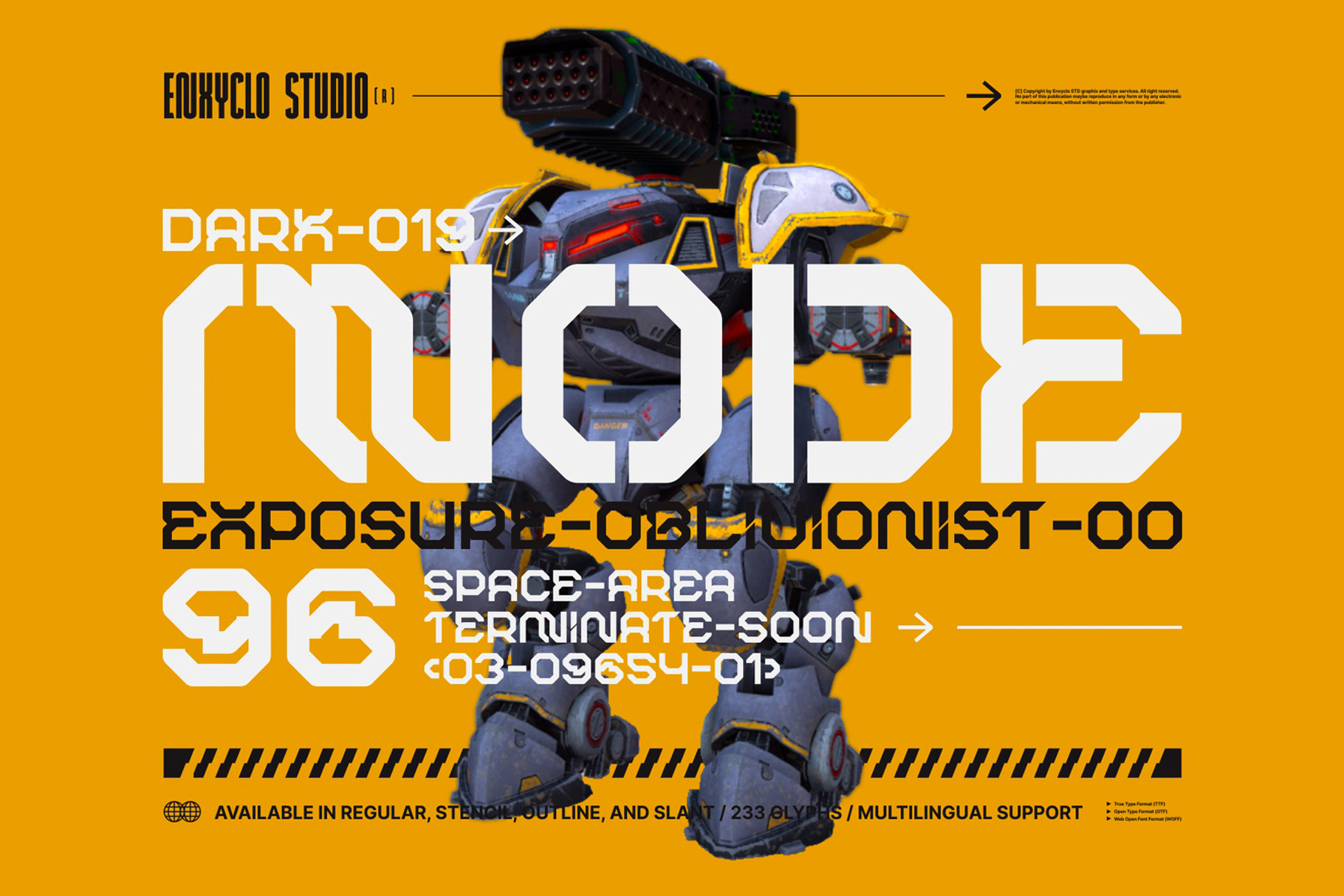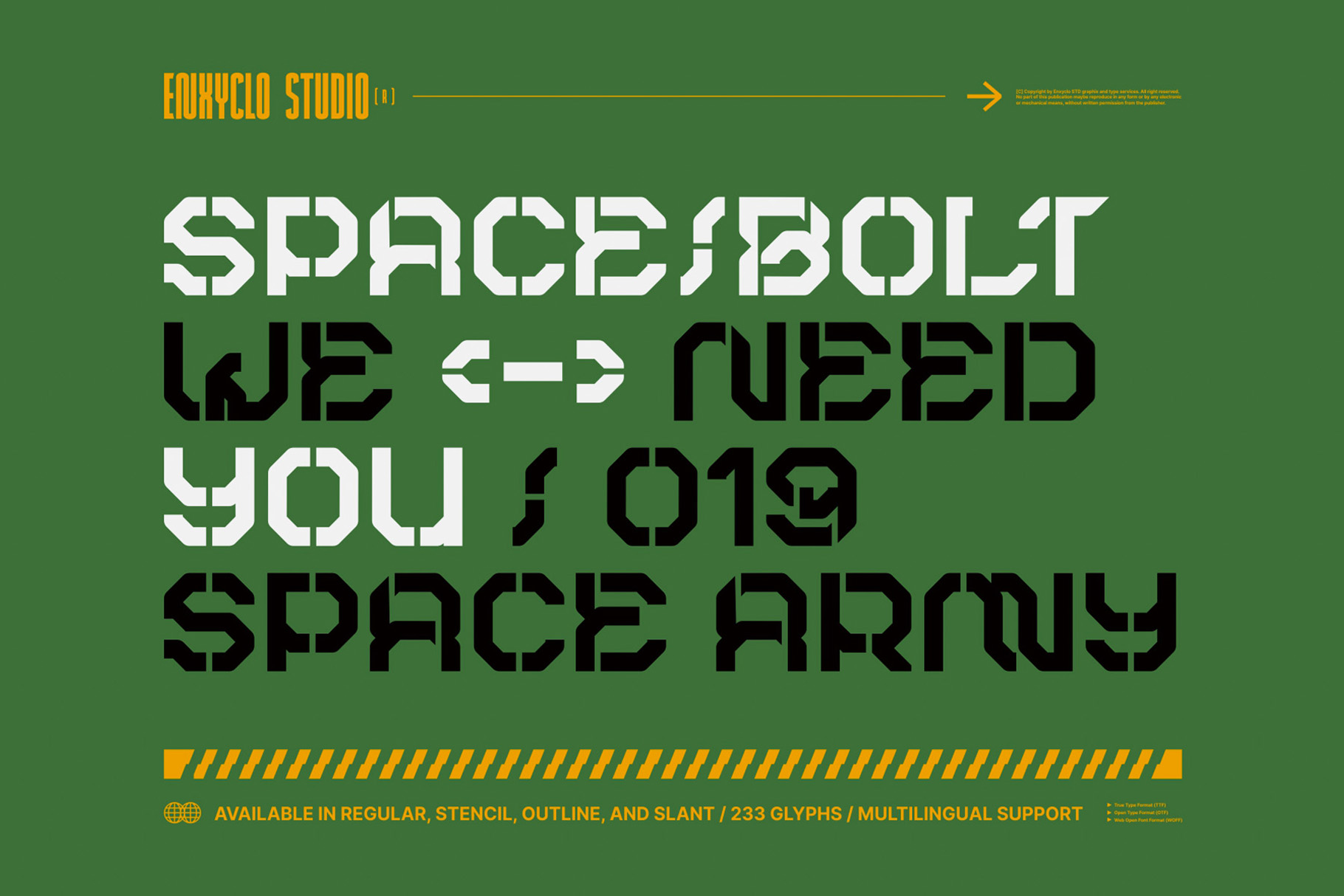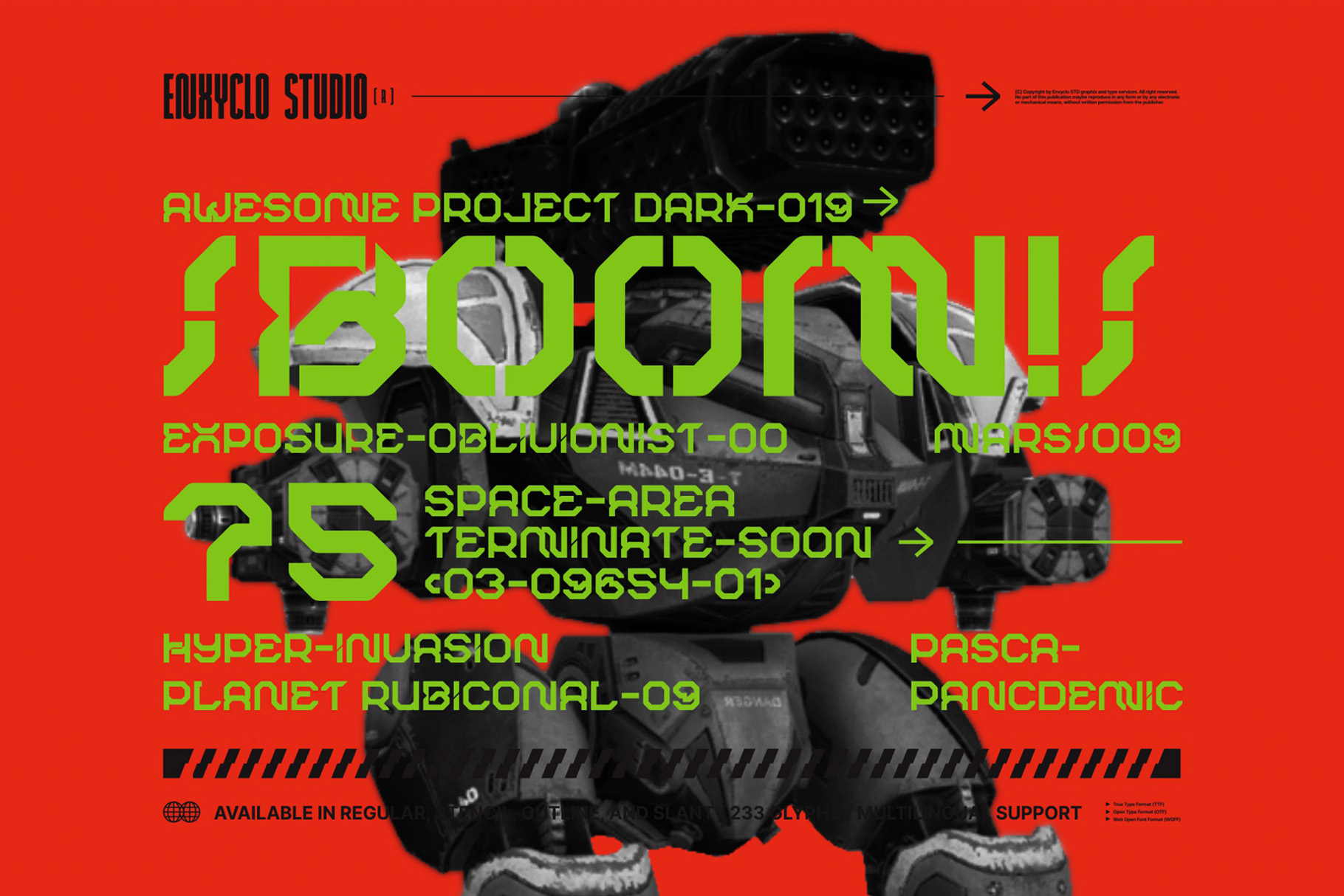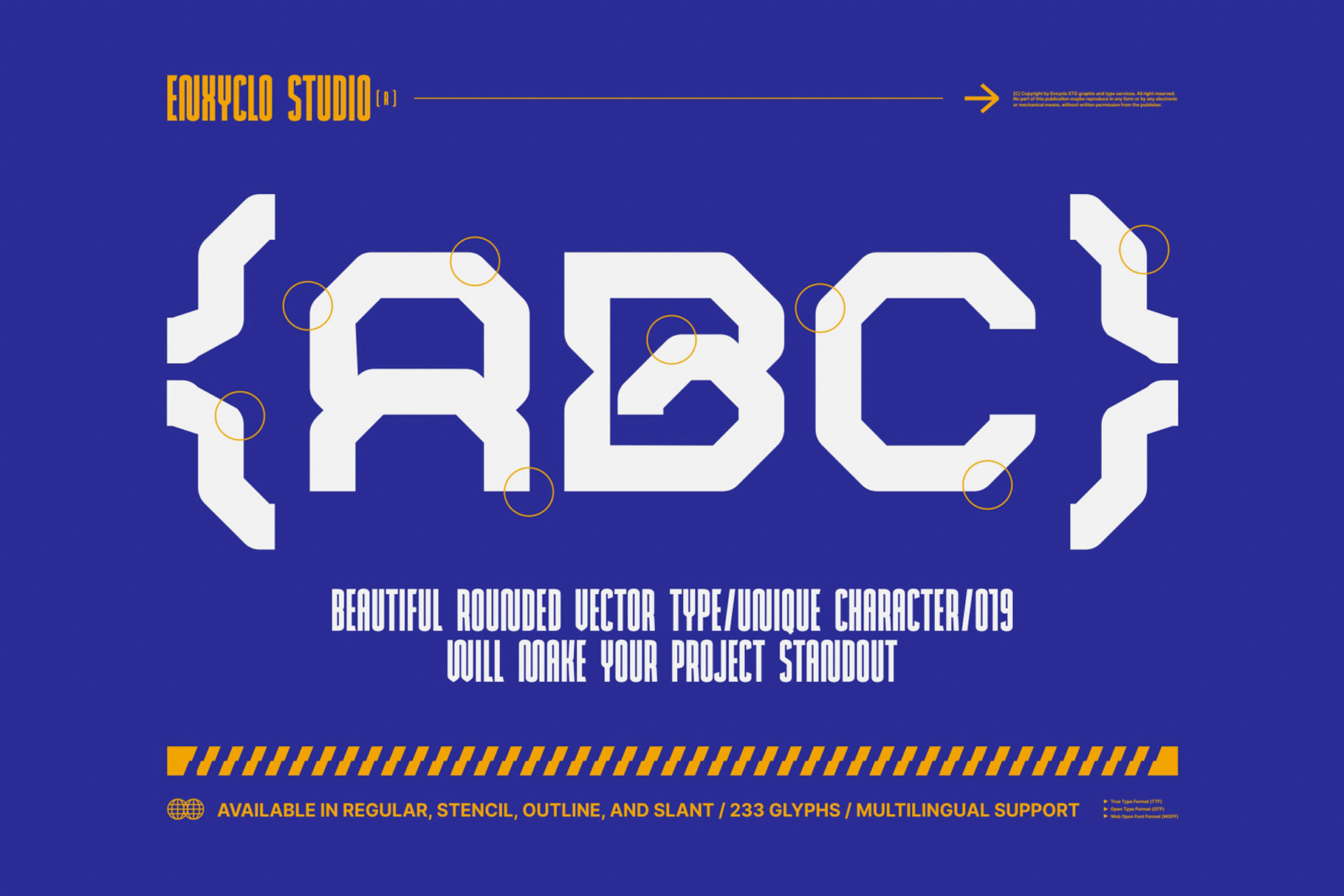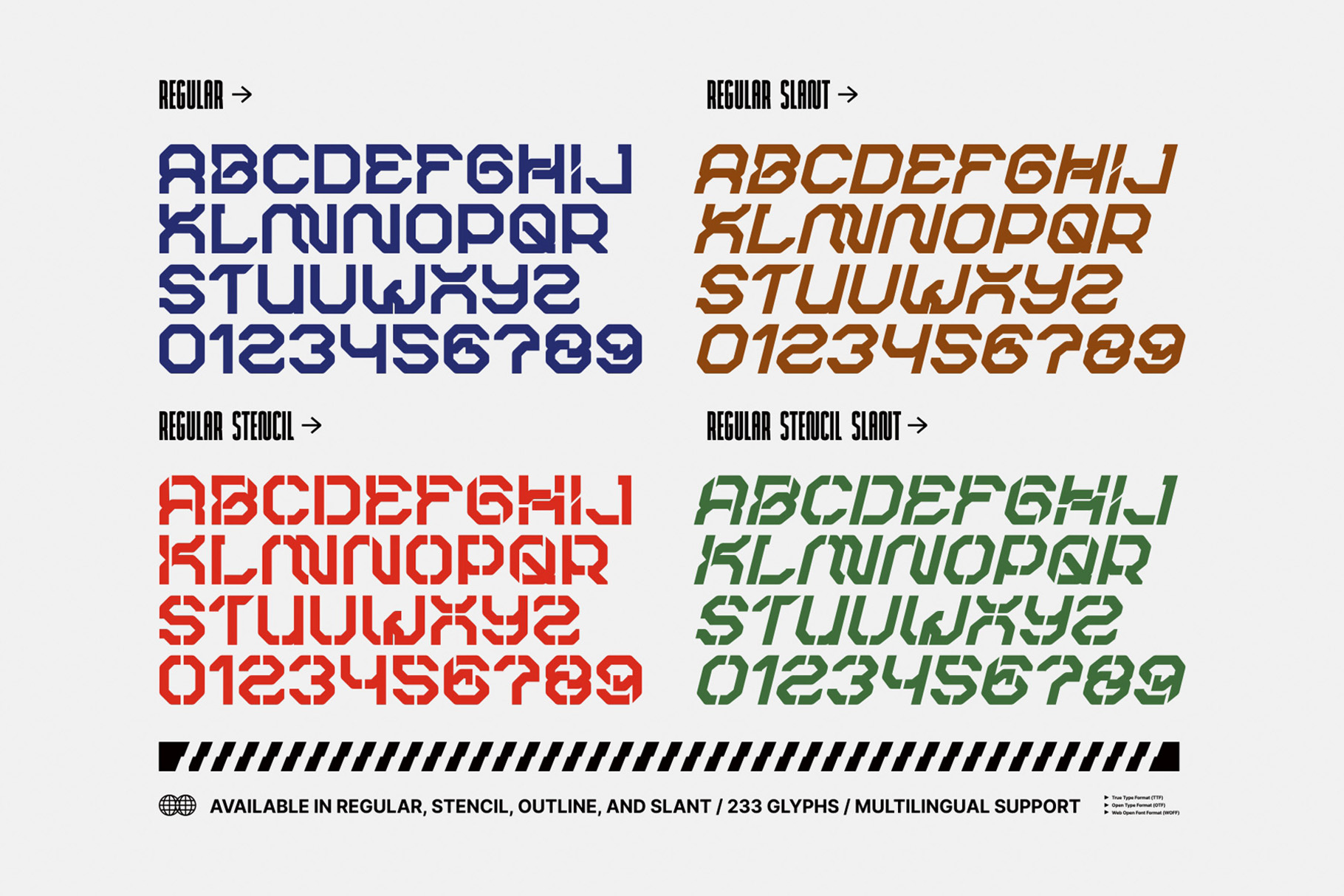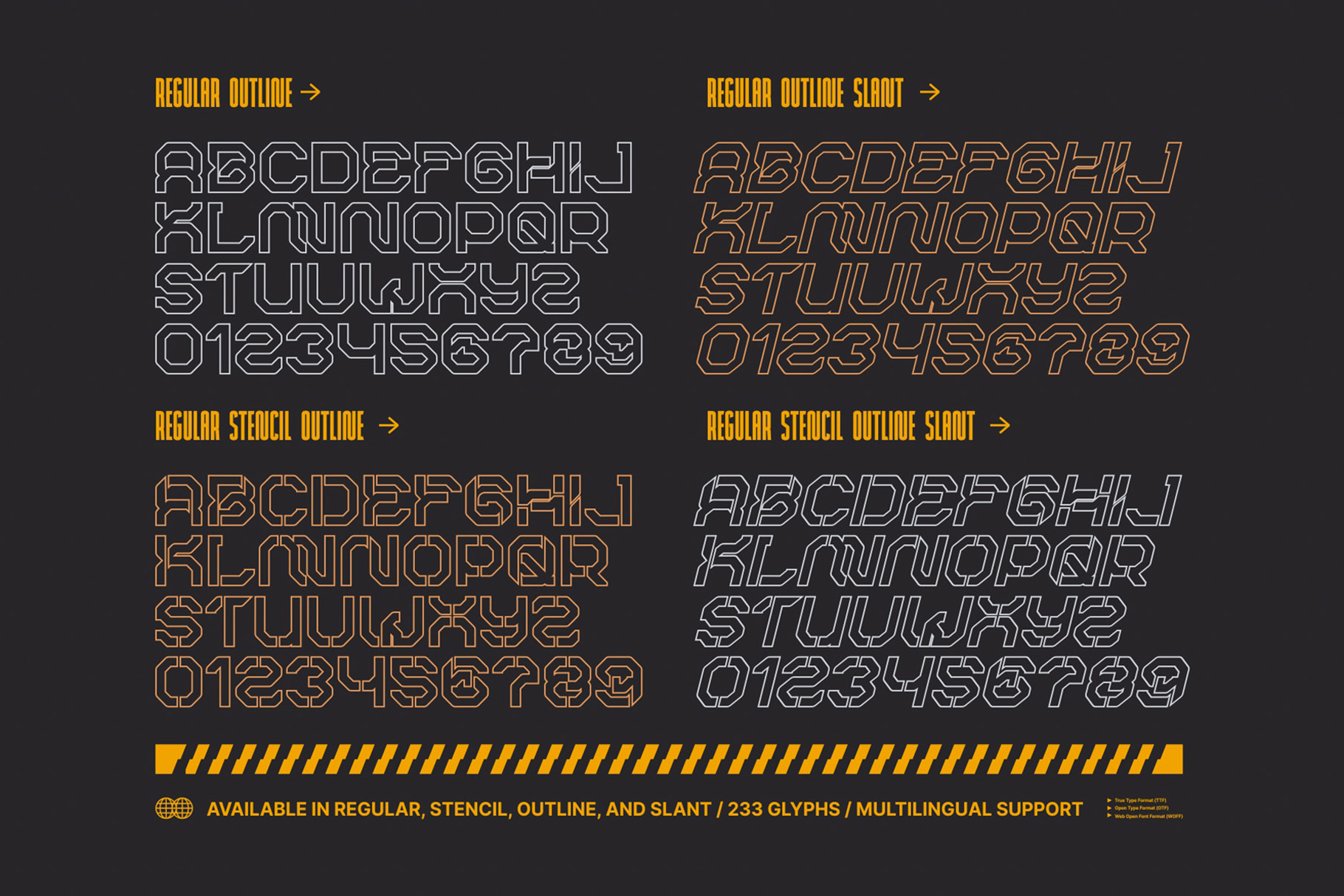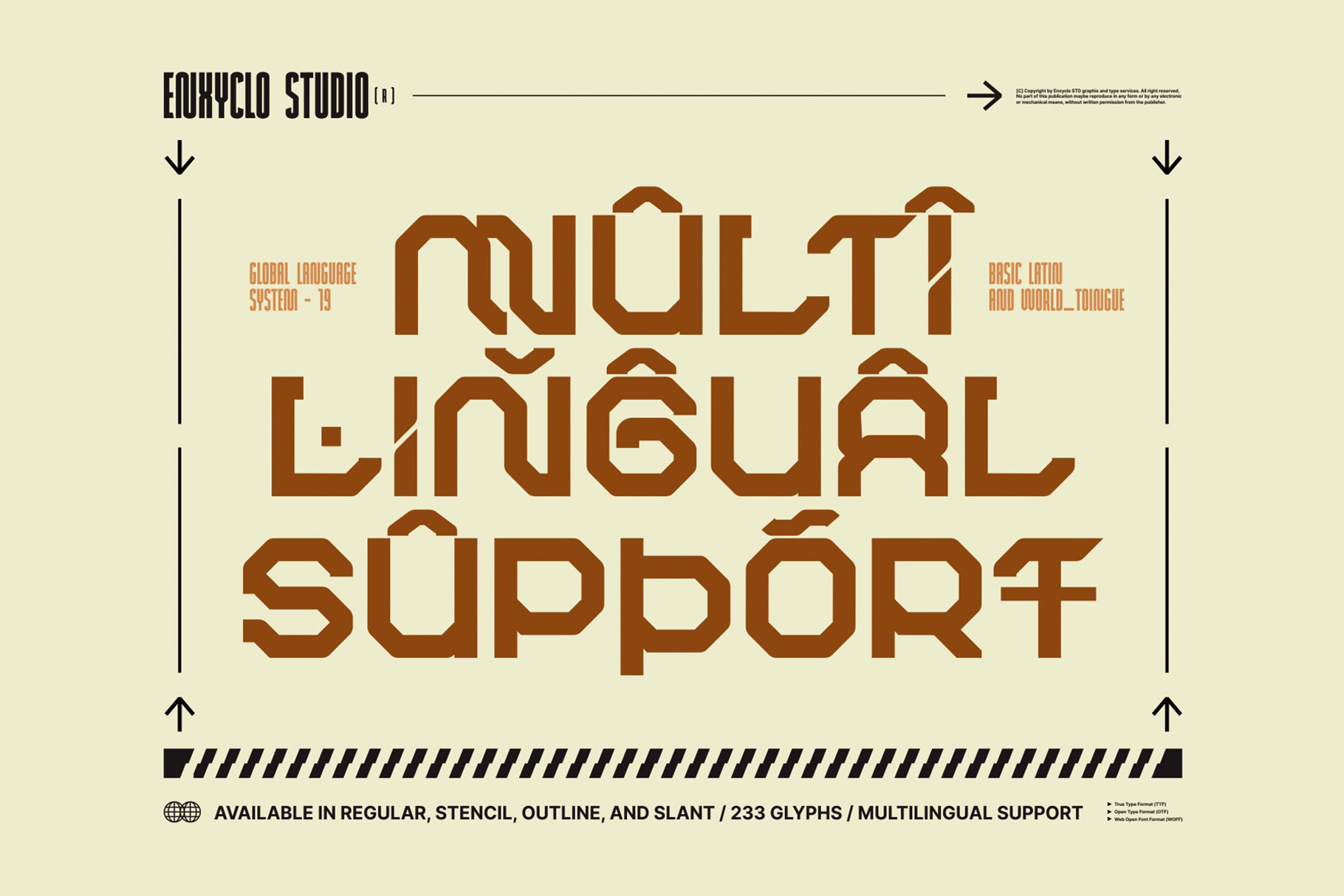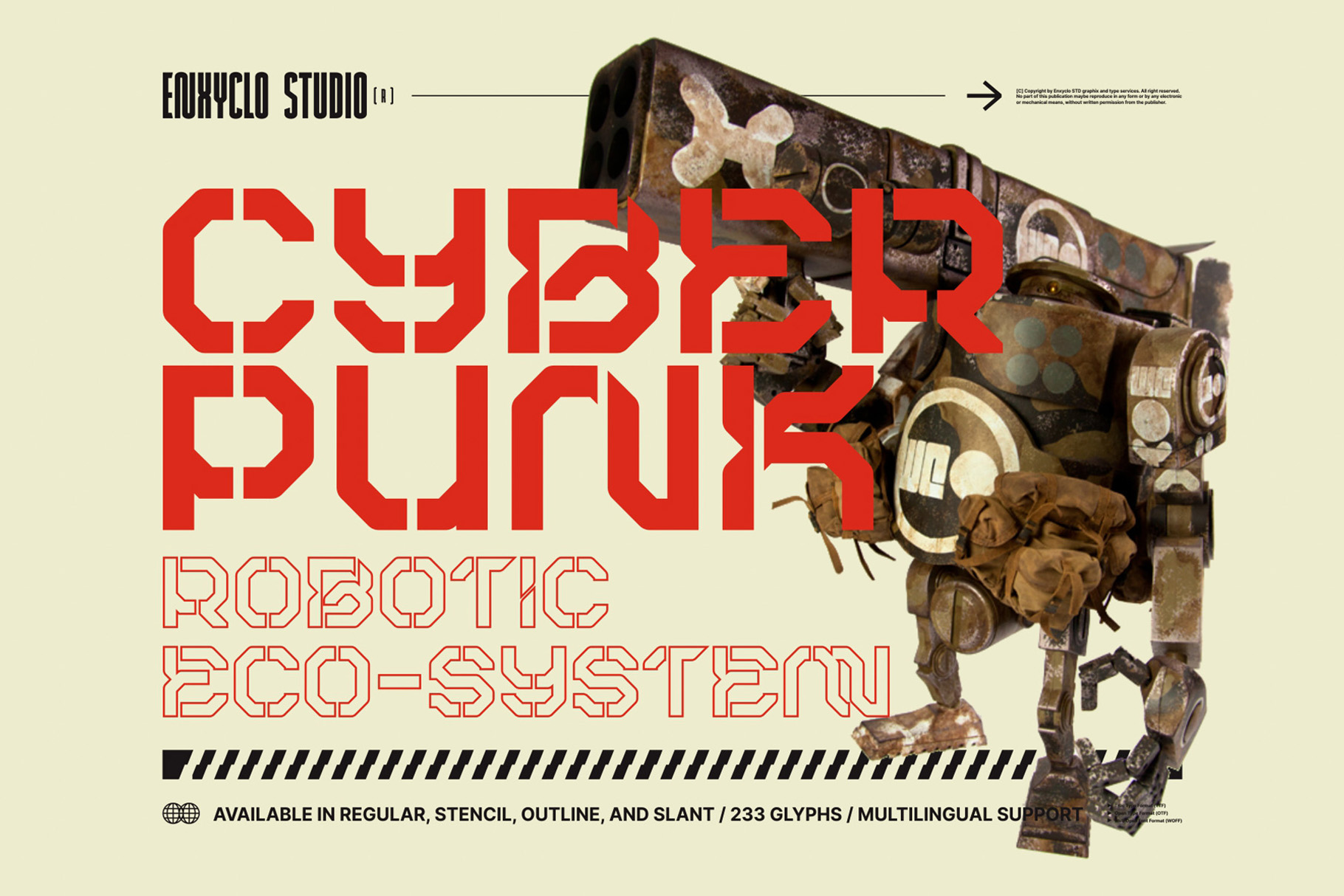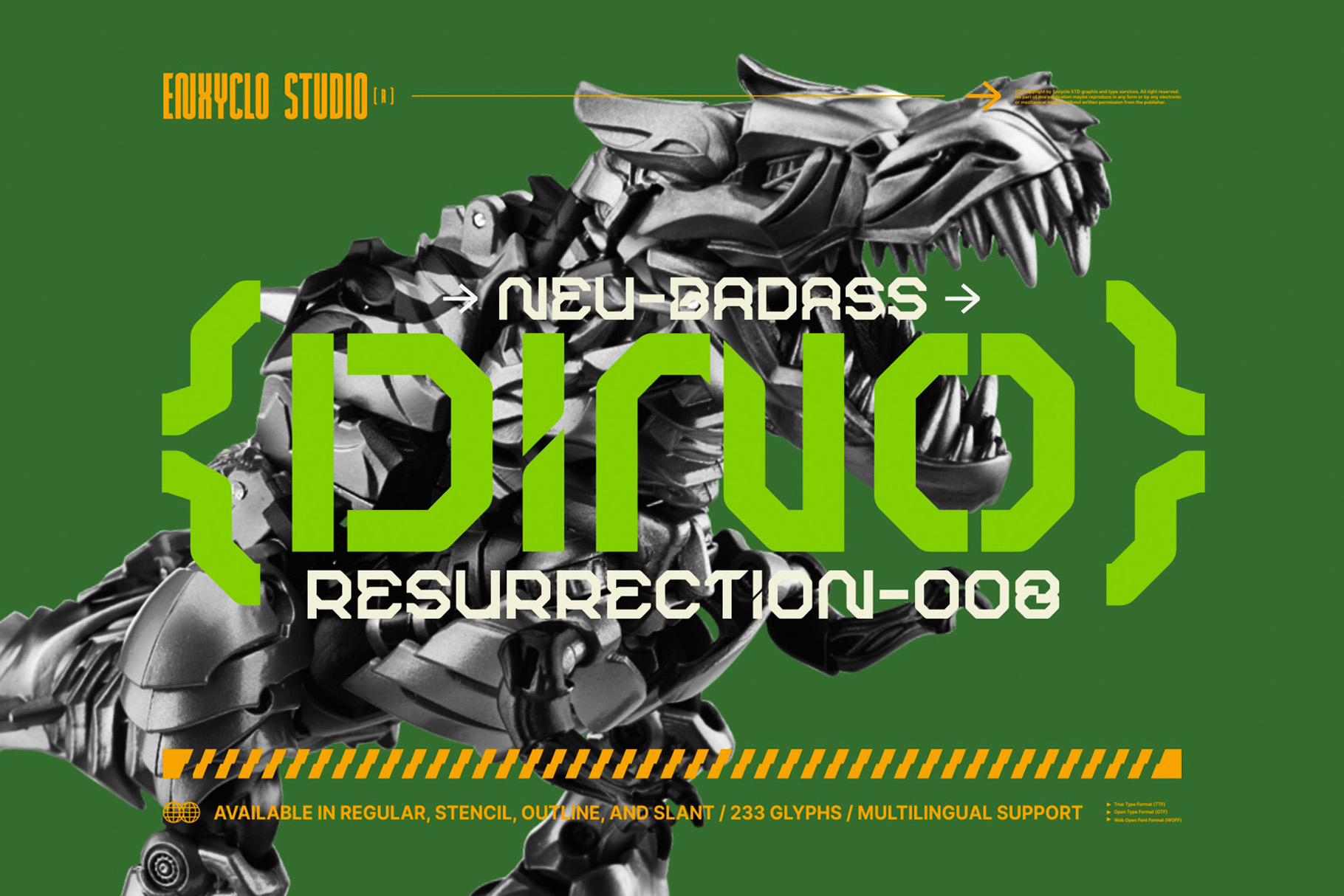
Robmax36 – Futuristic Techno Cyberpunk Font
ROBMAX-36 is futuristic mecha cyberpunk typeface. Highly inspired by industrial and mecha-robotic vibes. The design of typeface will make your project more powerful and inspiring. It is perfect for headline, billboard, magazines, website, titles, poster, branding, thumbnail, t-shirt design, street wear design, and creative logos, or any project that needs futuristic and industrial touch. With this beautiful futuristic and industrial typeface, absolutely you can make your project stand out from the rest. See the previews above to get some inspiration on how to use them.
8 Styles: Regular, Slant, Outline, Outline Slant, Stencil, Stencil Slant, Stencil Outline, Stencil Outline Slant
Contains 233 Glyphs for Each Style (Total: 1.864 Glyphs)
Uppercase, Numeral, Punctuation & Symbol
Multilingual support